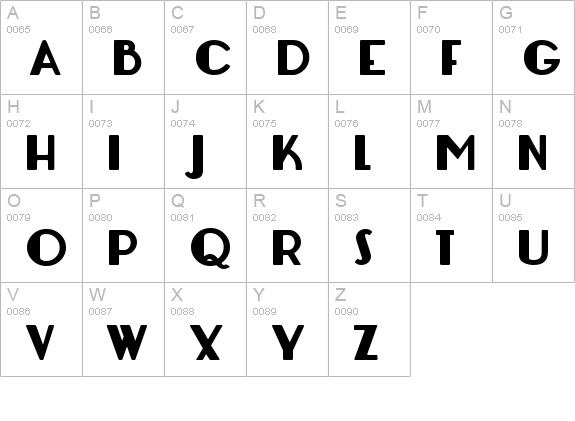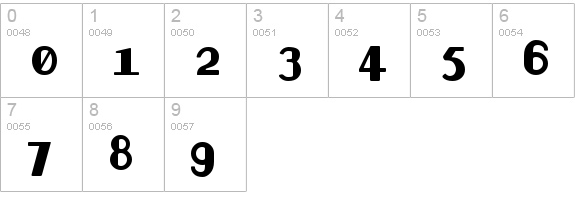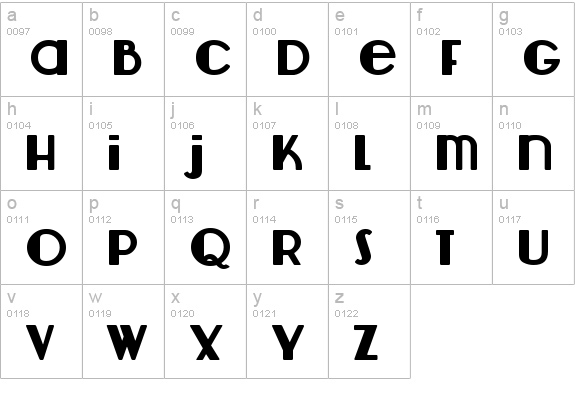
Lemondrop Font Details
Lemondrop font is a delightful and playful typeface that will add a burst of sunshine to any design project. With its whimsical curves and bouncy letterforms, this font exudes a sense of joy and lightheartedness. The smooth, rounded edges give it a friendly and approachable feel, making it perfect for creating eye-catching headlines, logos, and branding materials. One of the best things about Lemondrop font is that it is completely free! Yes, you heard that right – you can download this fantastic font without spending a dime. It's like a sweet treat that won't cost you anything but will bring so much flavor to your designs. To get your hands on Lemondrop font, simply head over to FontsMarket.com, where it is freely available for download. FontsMarket.com is a trusted source for high-quality fonts, and they offer a wide range of options to suit every style and project. With just a few clicks, you can have Lemondrop font ready to use in your next creative endeavor. Whether you're designing a whimsical children's book, a fun-filled party invitation, or a vibrant website, Lemondrop font will add a touch of enchantment and playfulness. Its versatility and charm make it a must-have in any designer's toolkit. So why wait? Go ahead and download Lemondrop font today and let your creativity soar! With its free availability and captivating design, this font is sure to bring a smile to your face and make your designs stand out from the crowd.